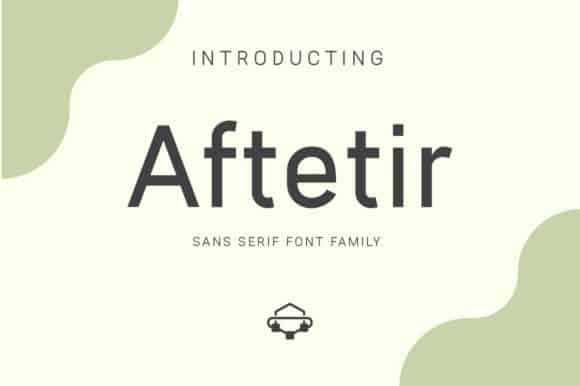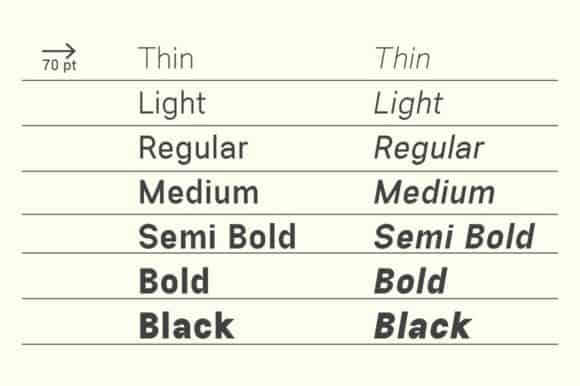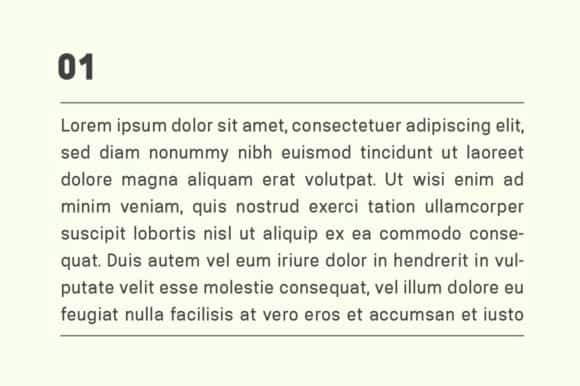
Aftetir Sans Serif Font
Aftetir Sans Serif Font is a simple sans serif typeface manufactured by AmruID. This font offers a wide variety of styles to help you discover the best mood for your projects, from body text to big headlines, from classic to modern and bold styles. Masterfully designed to become a true favorite, this font has the potential to bring each of your creative ideas to the highest level!